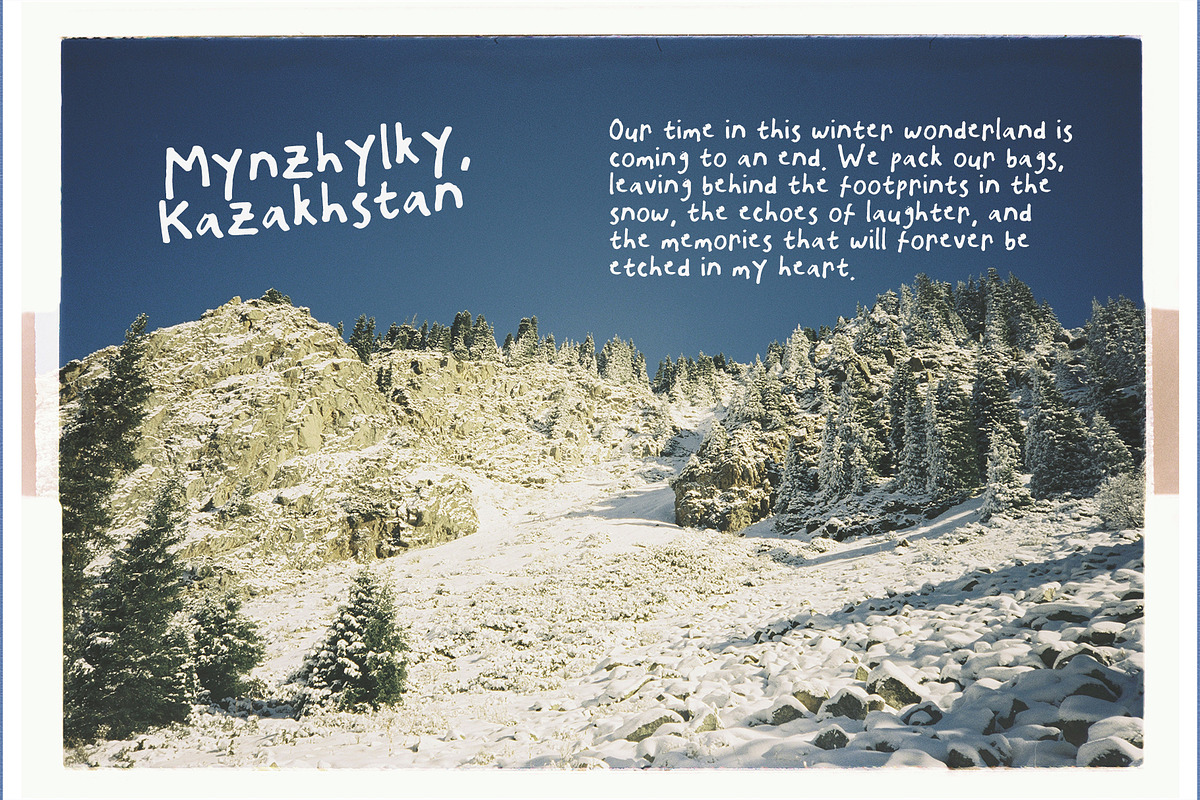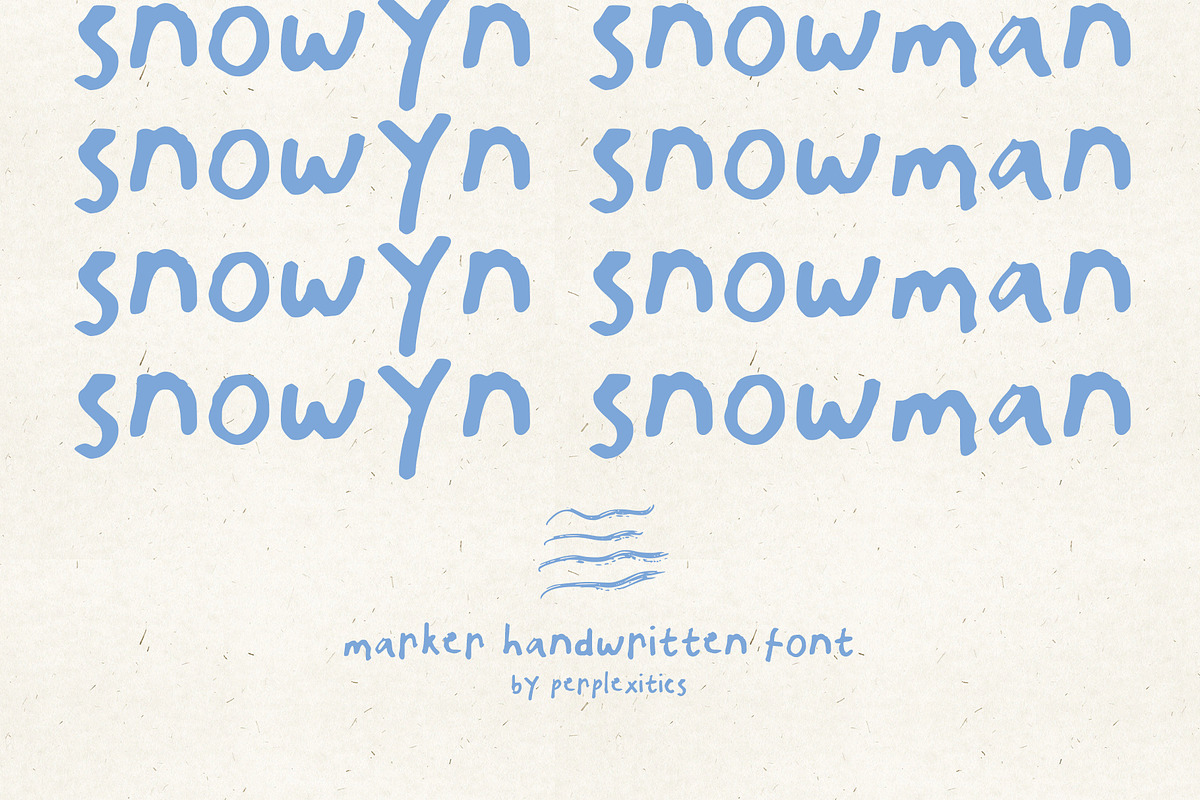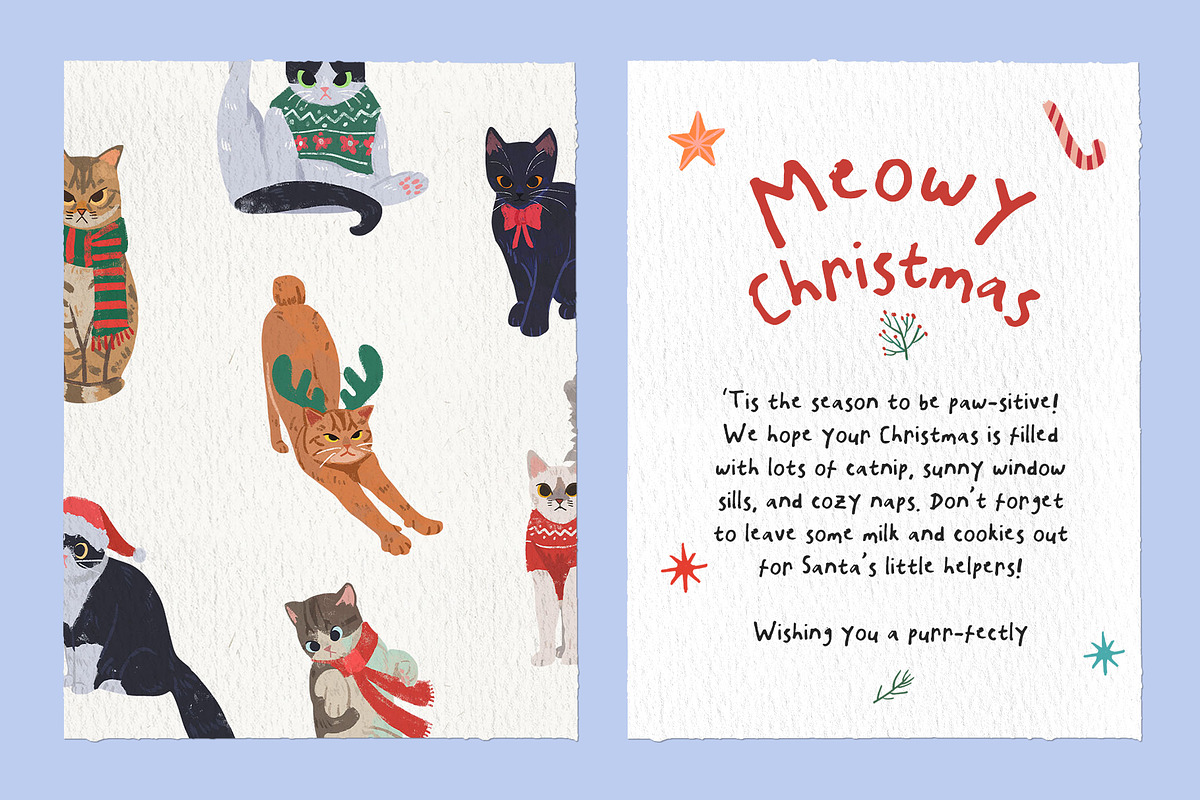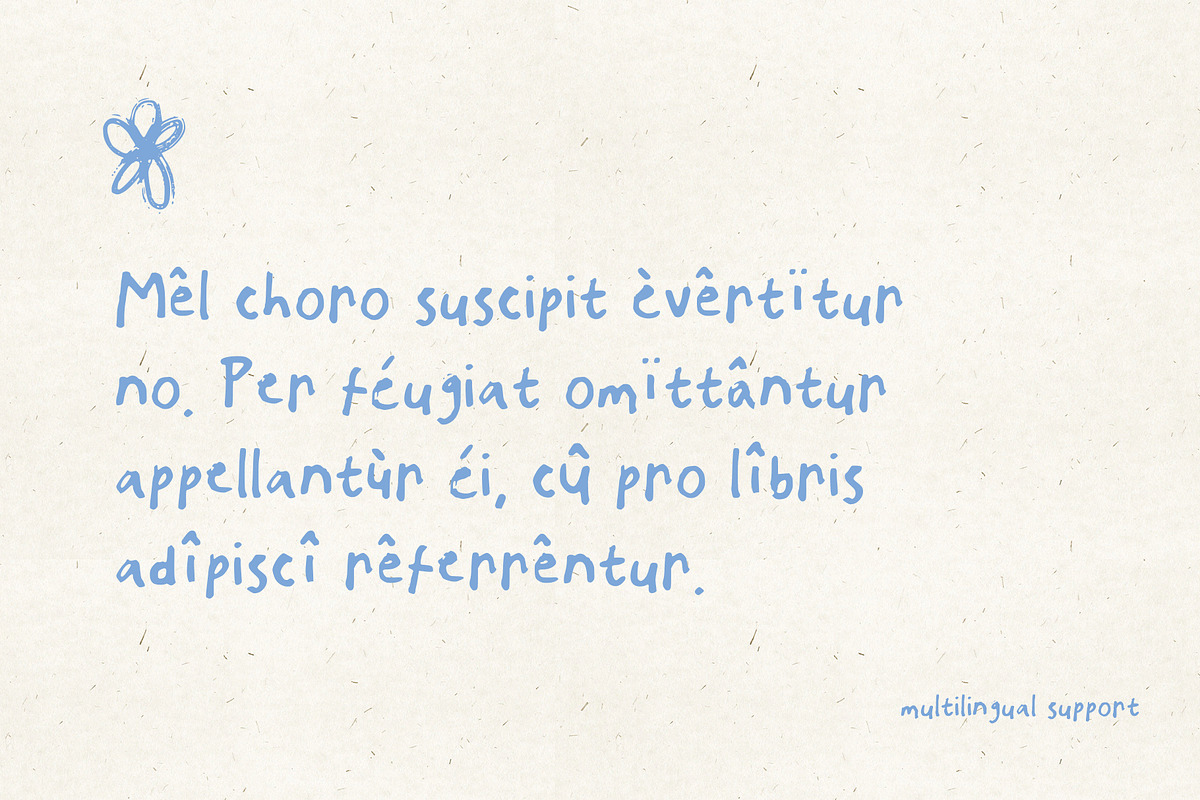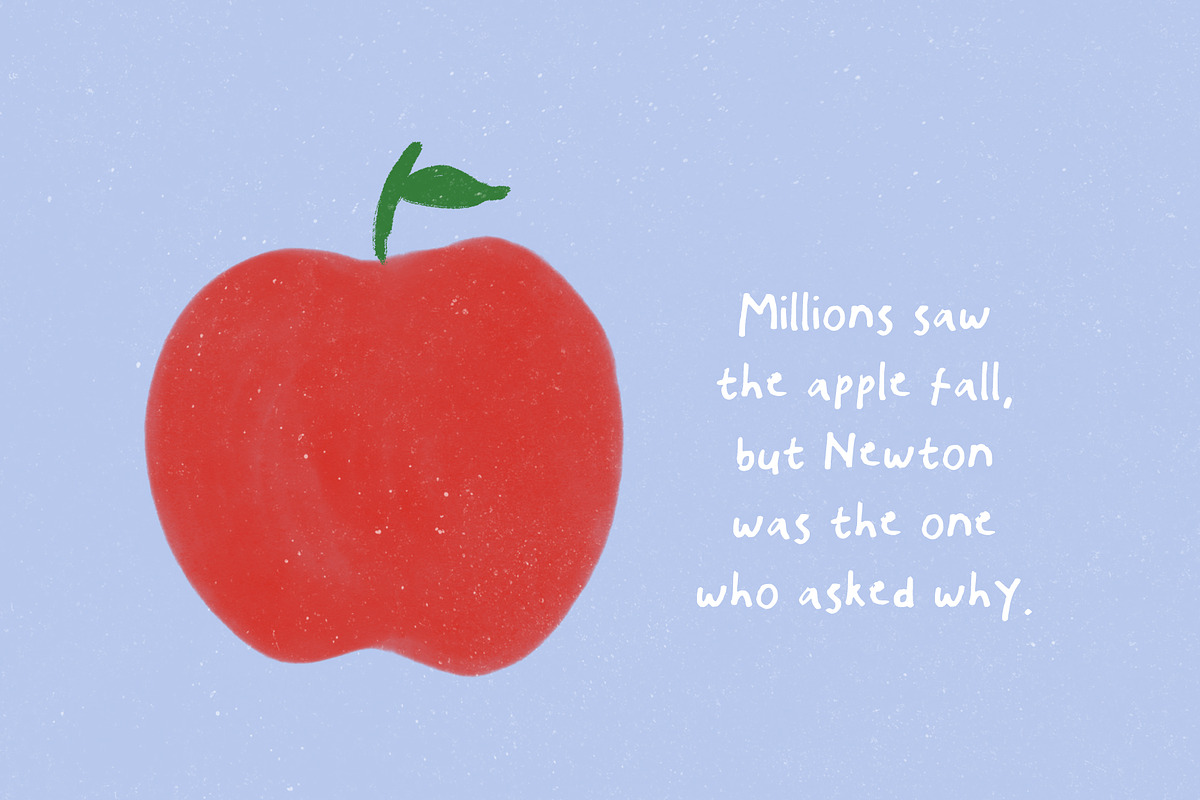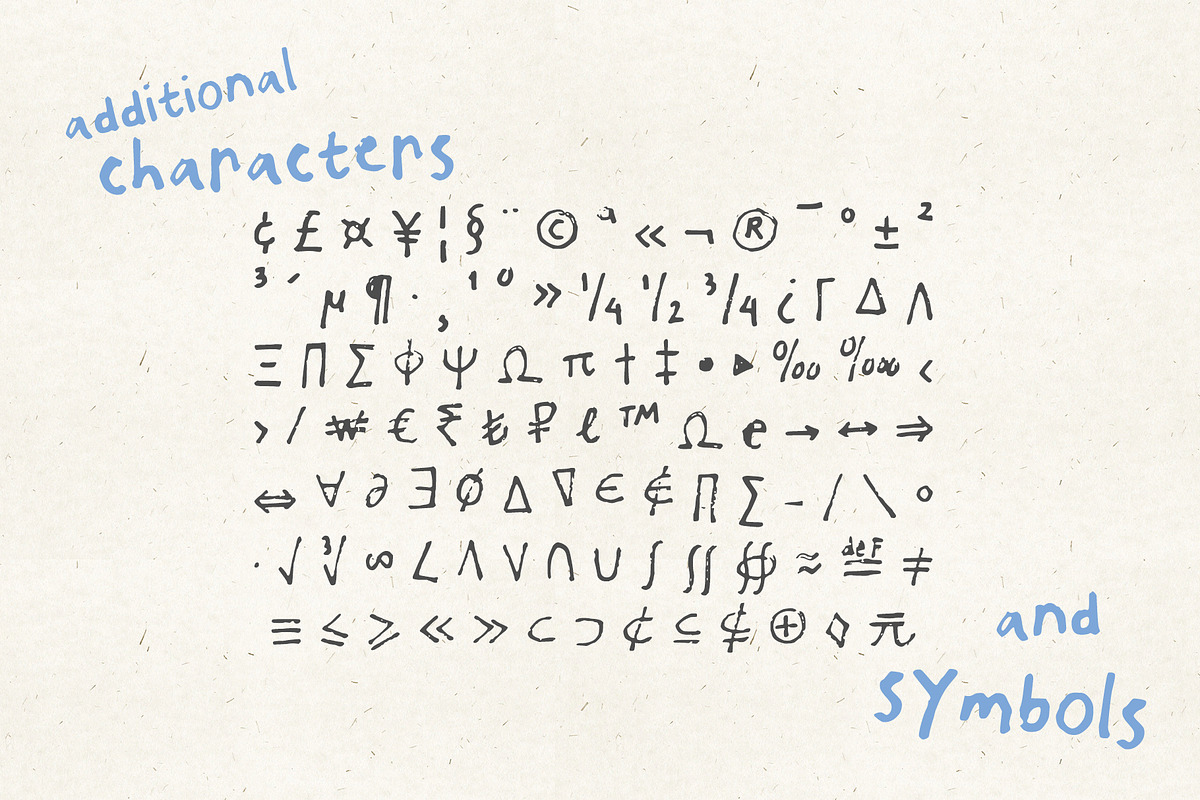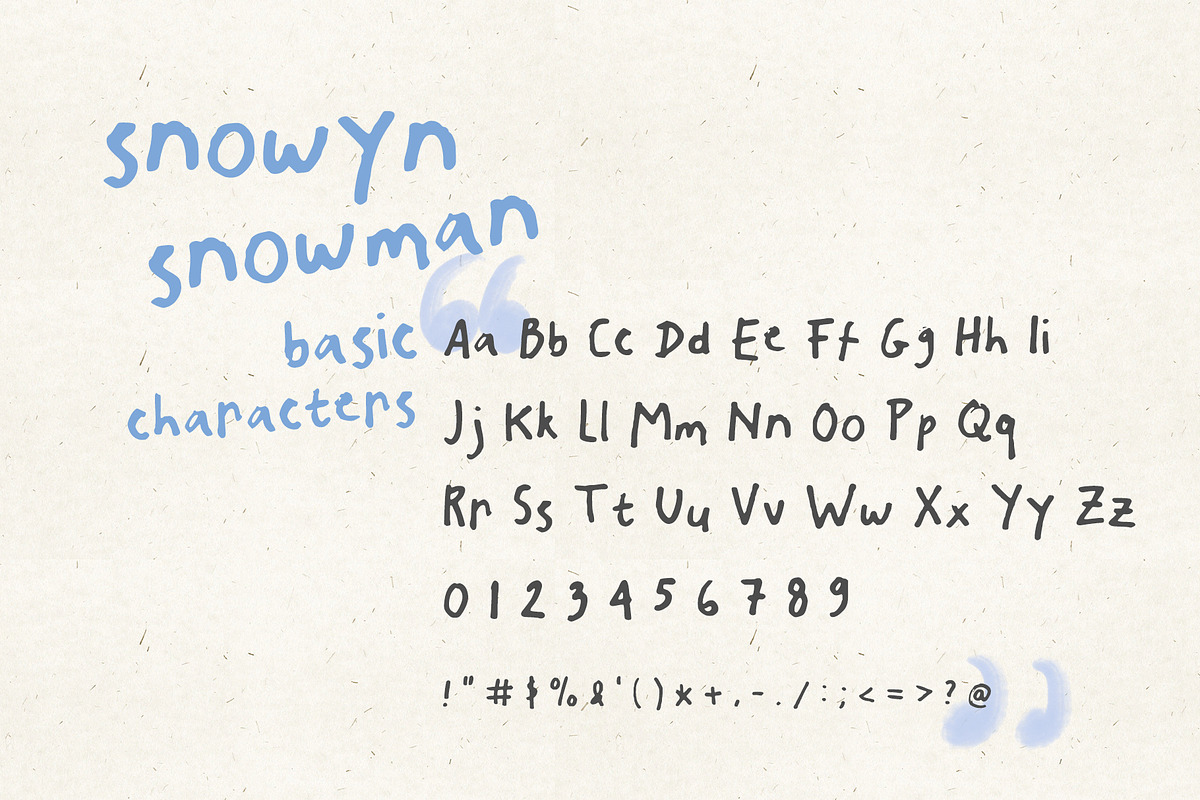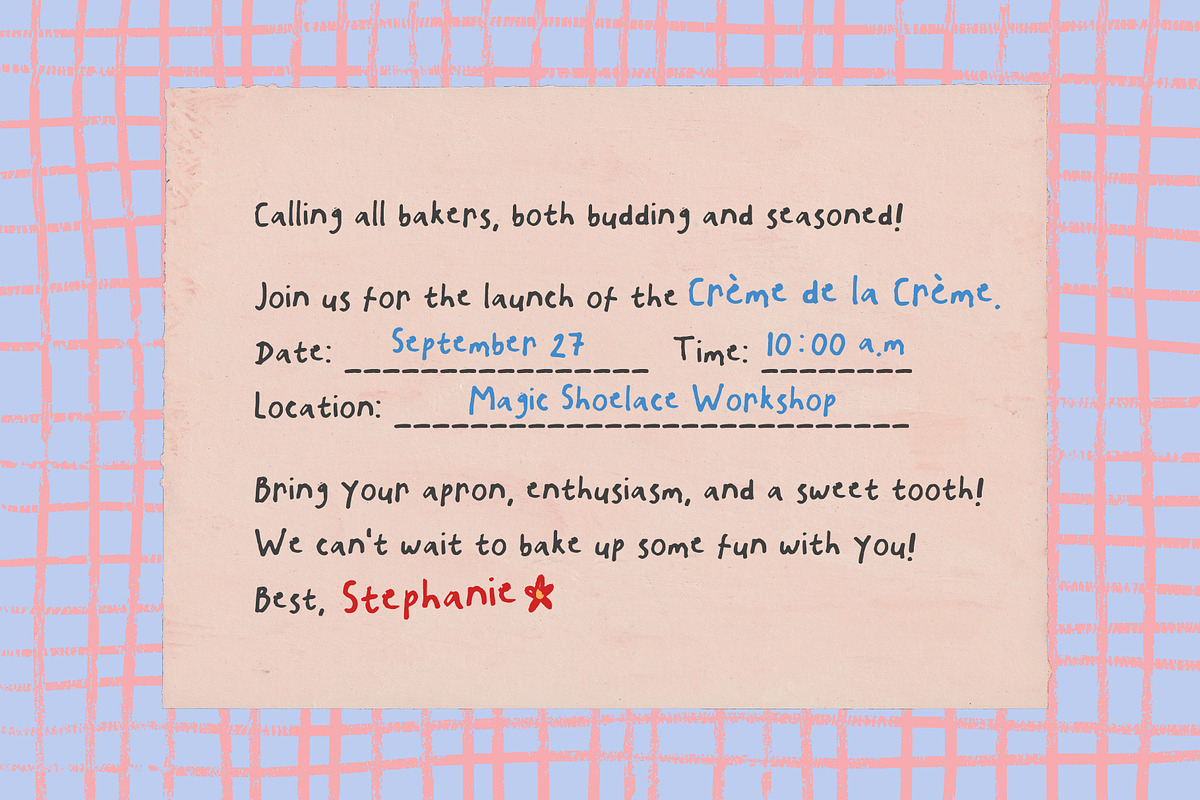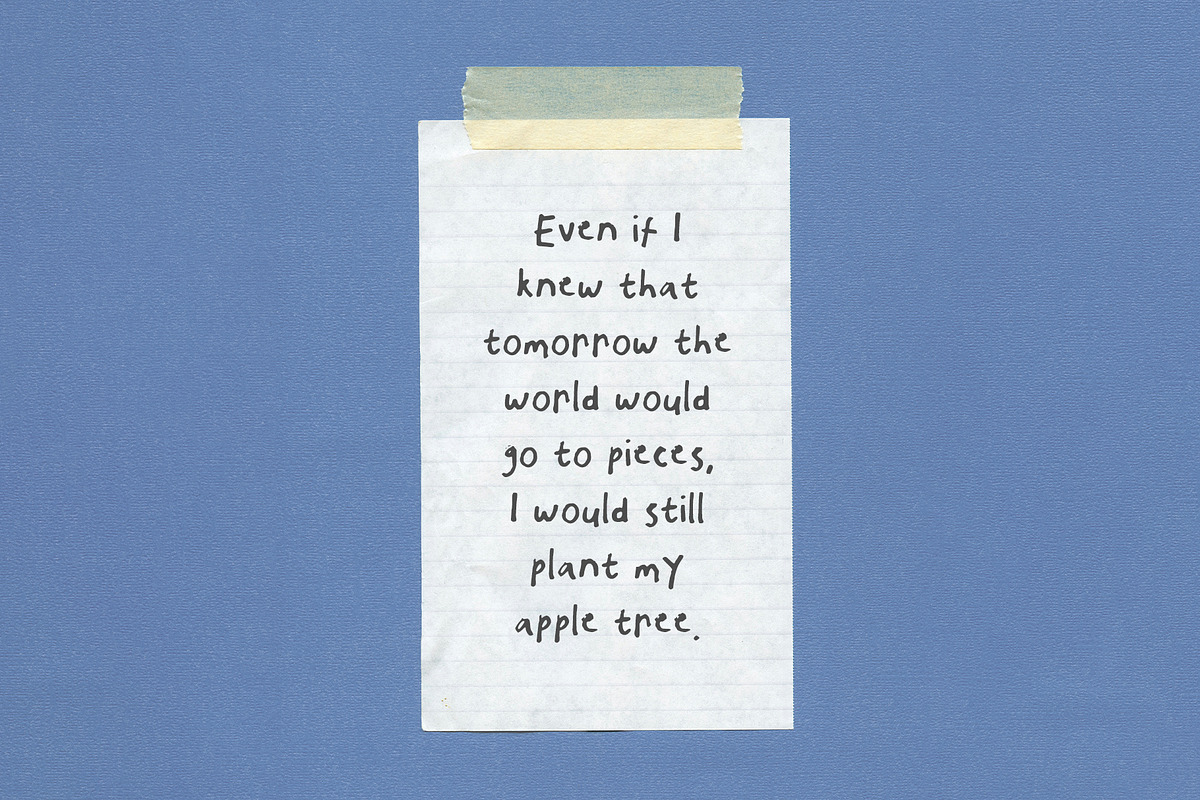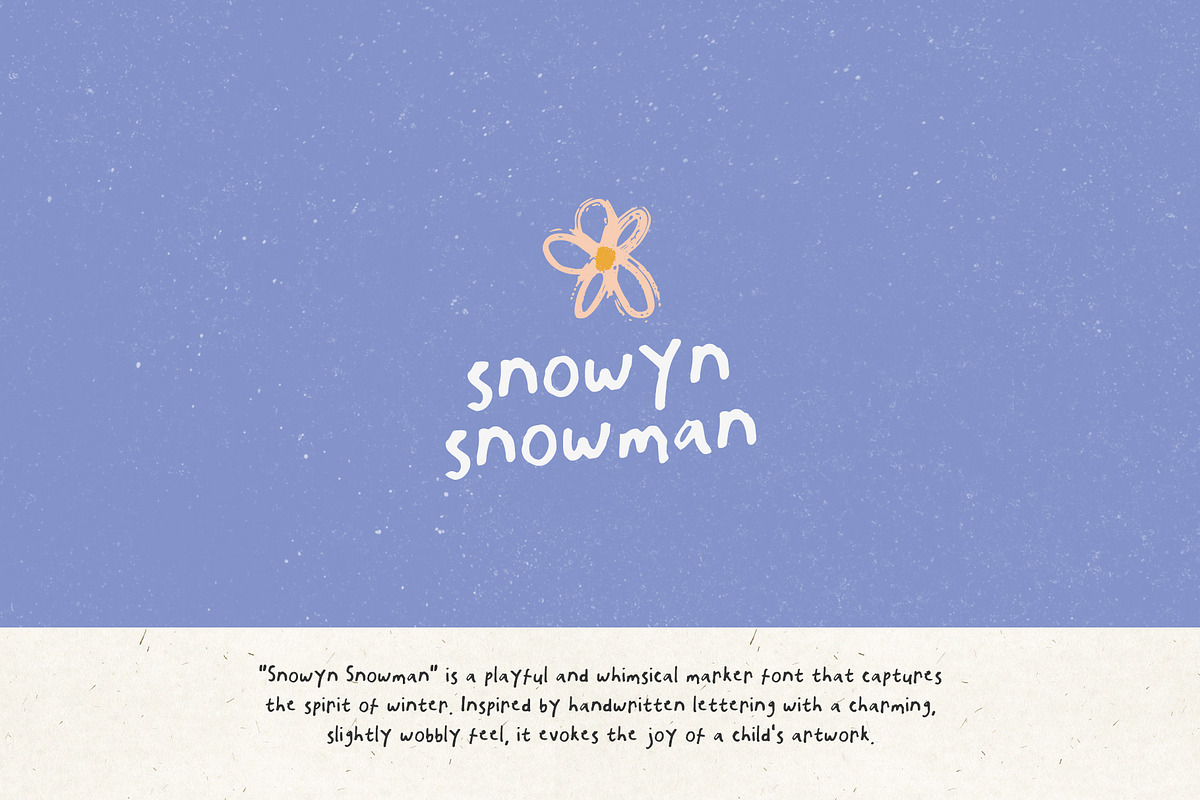
Snowyn Snowman Marker Handwritten
Snowyn Snowman is a playful and whimsical marker font that captures the spirit of winter. Inspired by handwritten lettering with a charming, slightly wobbly feel, it evokes the joy of a child's artwork.
Snowyn Snowman Font is packed with everything you need, including uppercase and lowercase letters, numbers, and punctuation. Multilingual support.